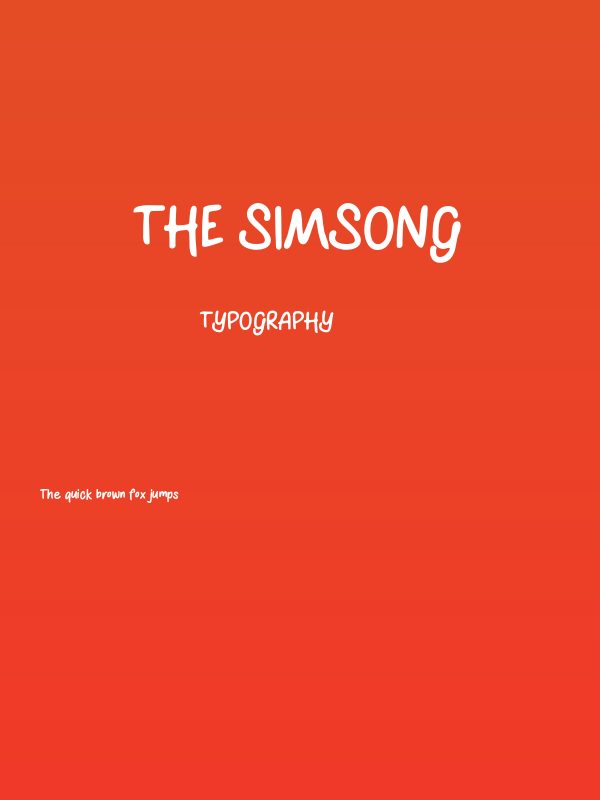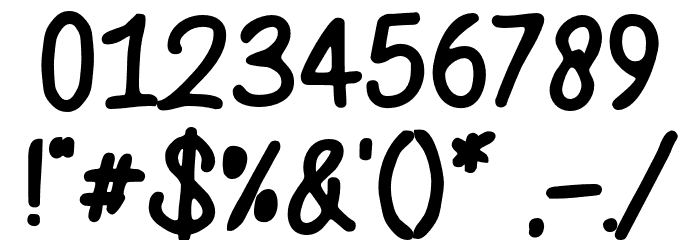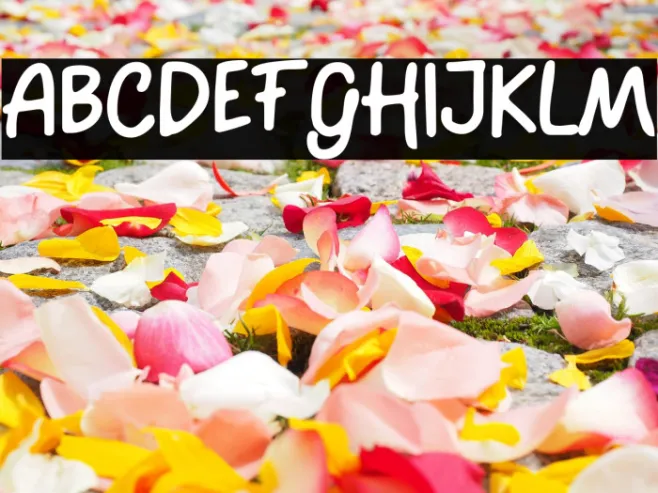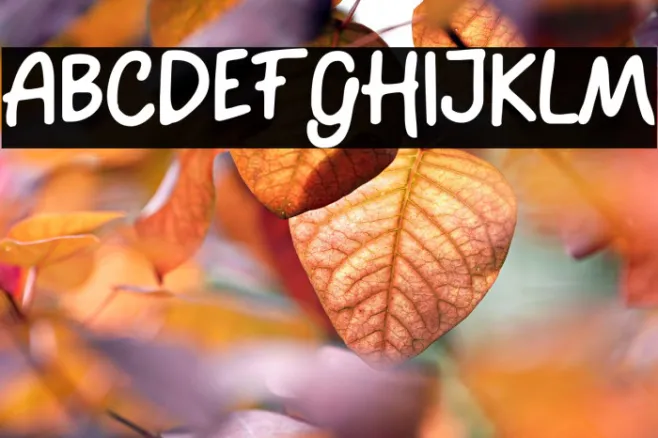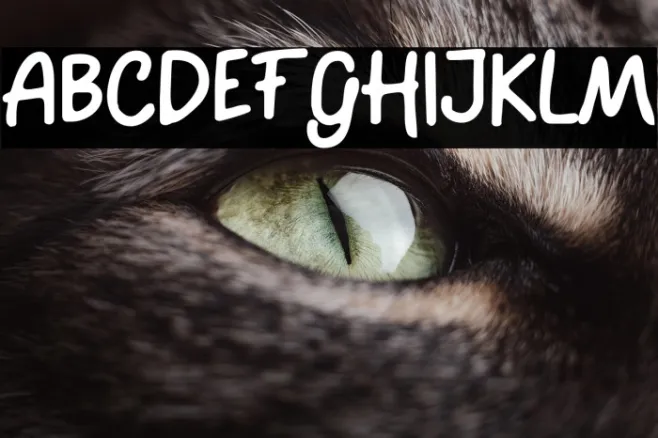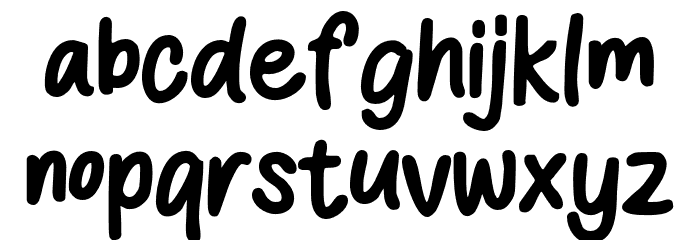
The Simsong Font
The Simsong Description
This font features a playful and casual handwritten style, characterized by its bold and rounded letterforms. The strokes are consistent in thickness, giving it a uniform appearance. The uppercase and lowercase letters maintain a friendly and approachable look, making it suitable for informal and creative projects. The numbers and special characters complement the overall style, ensuring readability and coherence. The font's design is reminiscent of hand-drawn lettering, adding a personal touch to any text.
| Use Case | Headlines, Logos, Informal Texts |
| Proposed Projects | Ideal for children's books, greeting cards, playful branding, and social media graphics. |